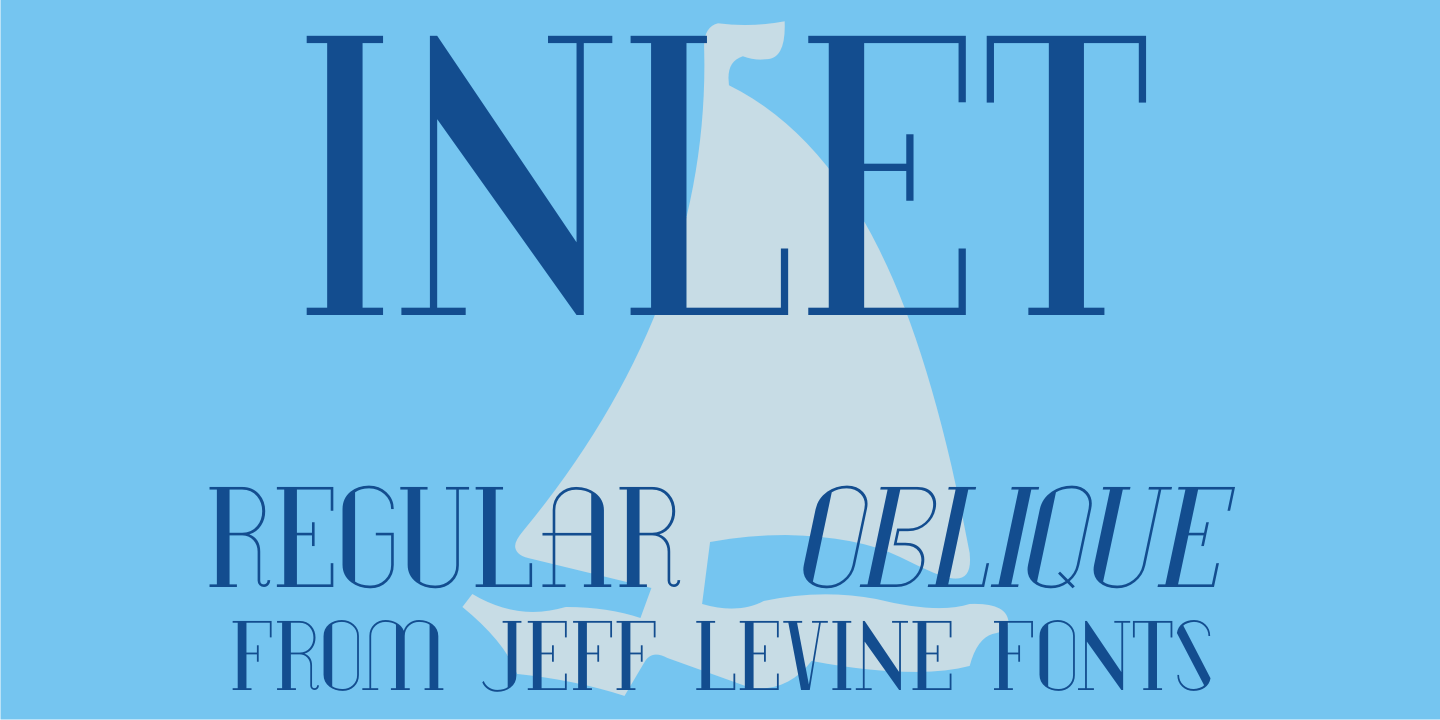
Inlet
An interesting bit of Art Deco influenced serif hand lettering was found on the cover of the sheet music for 1938's 'Boatman's Serenadeā€. This became the model for the digital font Inlet JNL; available in both regular and oblique versions.
Inlet JNL Regular by Jeff Levine Fonts